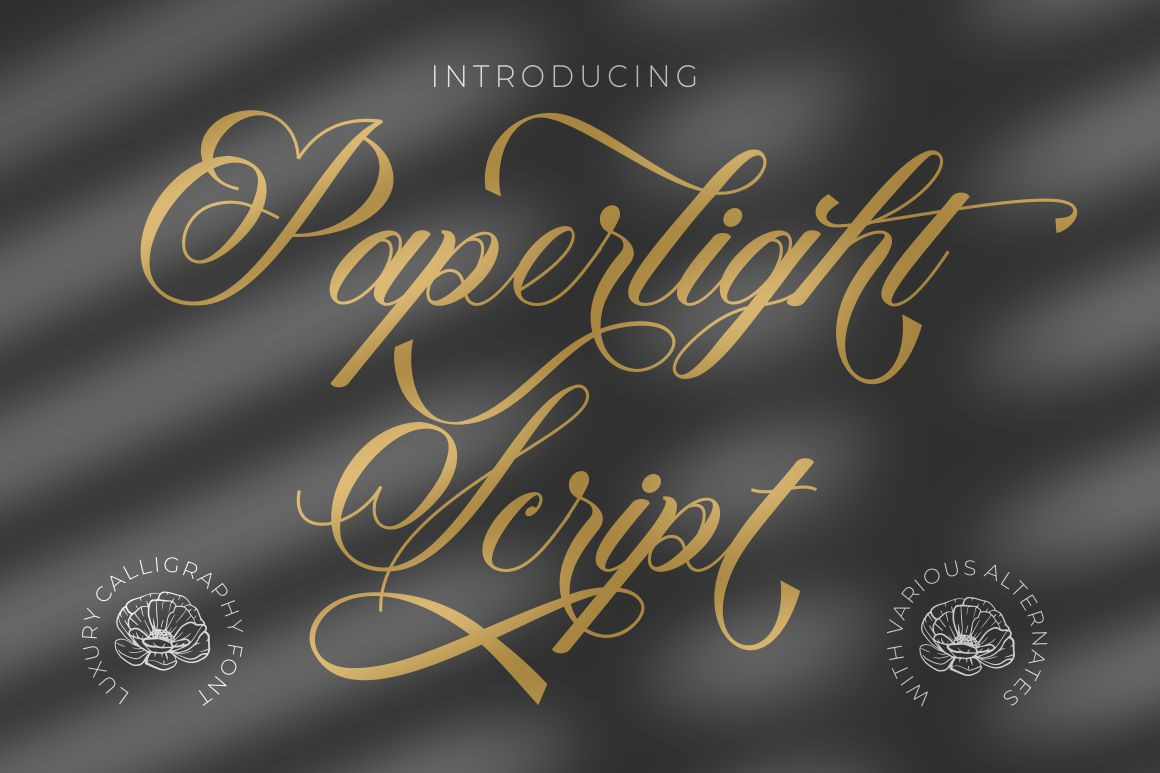
Paperlight Script - Calligraphy Font
Paperlight Script - Luxury Calligraphy Font. Paperlight Script is calligraphy font with a classic style and a touch of elegance, inspired by the handwriting of ancient manuscripts. This calligraphy harmony gives the impression of being luxurious, free and sophisticated. The body text of Paperlight Script font has been designed with high details, precisely, smooth and flow.
Paperlight Script font carefully designed to work together harmoniously making it perfect for wedding media, book covers, greeting cards, logos, branding, business cards and certificates, even for any design work that requires classic, formal or luxurious